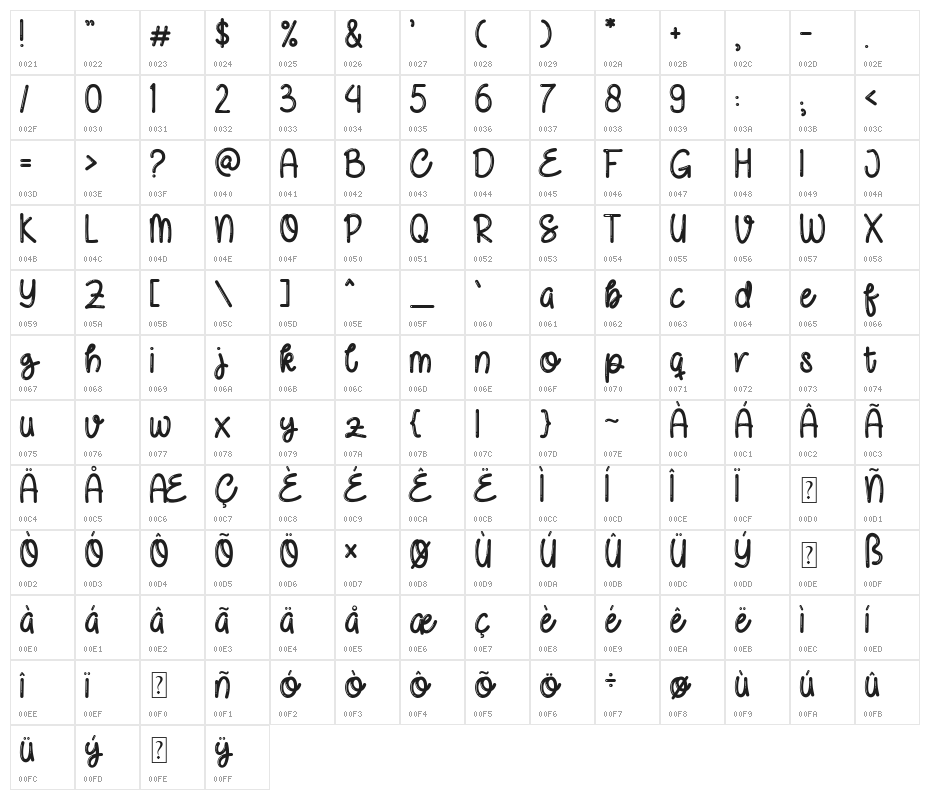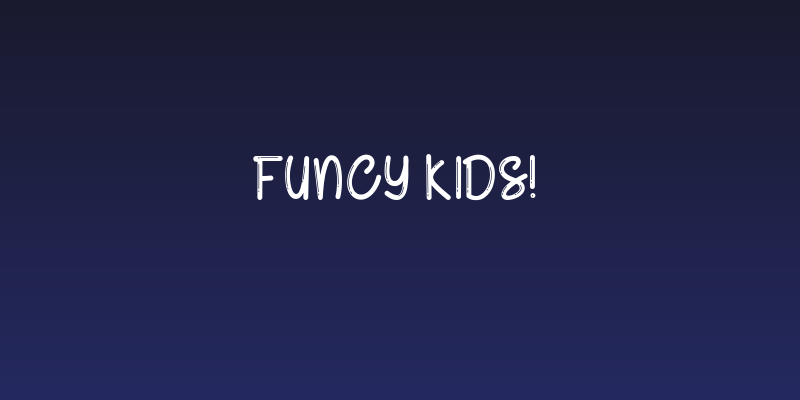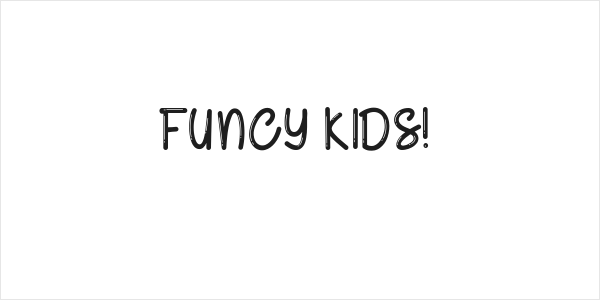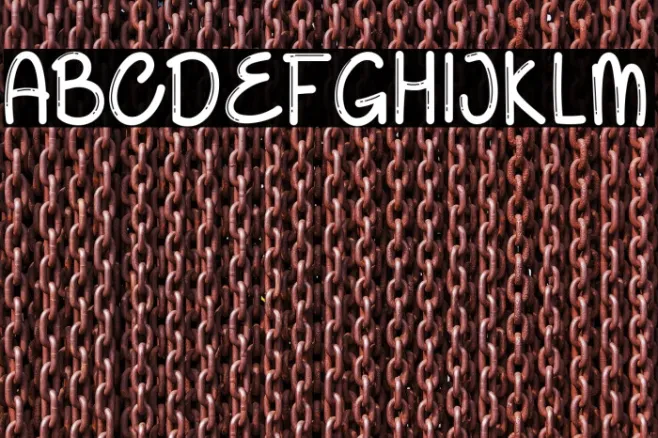
FUNCY KIDS! Font
FUNCY KIDS! Description
This playful and whimsical font features a handwritten style with a bubbly and rounded appearance. The characters are bold and have a consistent thickness, giving them a friendly and approachable look. The uppercase and lowercase letters maintain a cohesive style, with slight variations that add to the charm. Numbers and special characters are designed to match the playful aesthetic, making this font ideal for projects that require a fun and lively touch. The overall design is reminiscent of children's handwriting, making it perfect for kid-friendly materials.
| Proposed Projects | Ideal for children's books, educational materials, playful branding, and party invitations. |